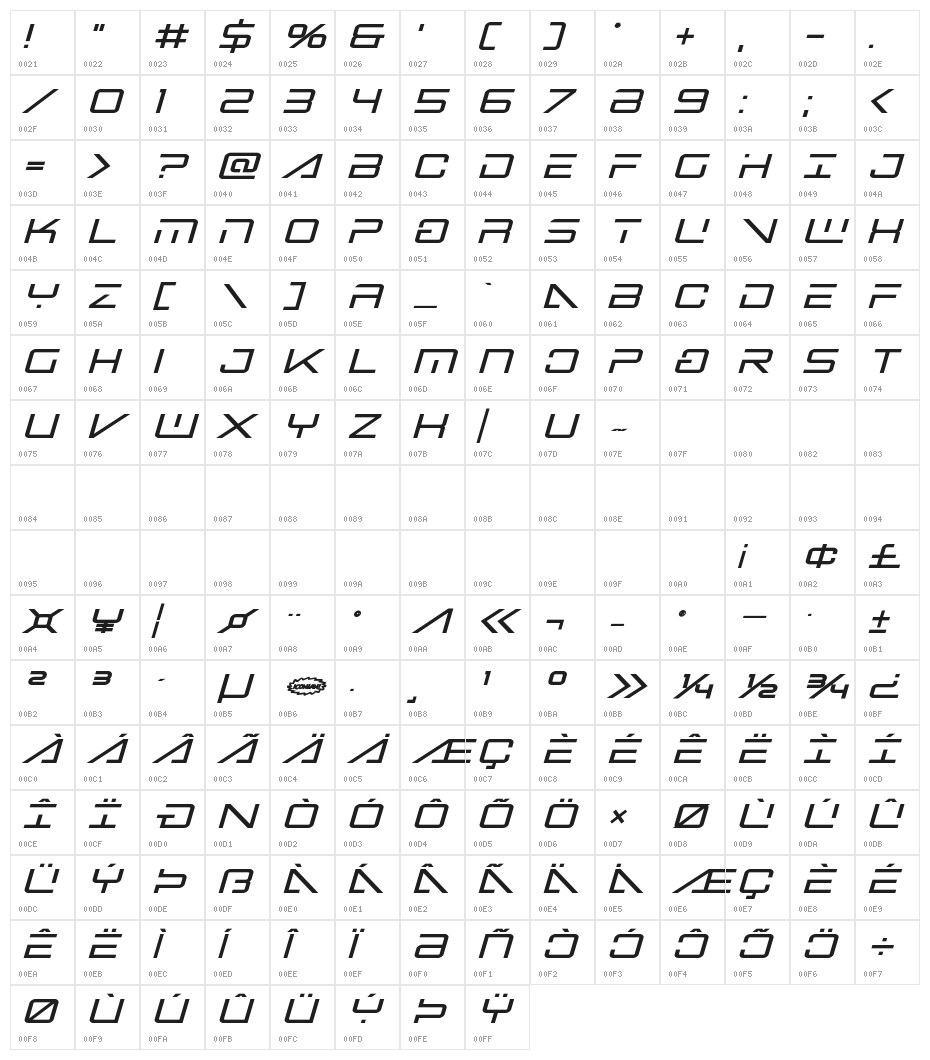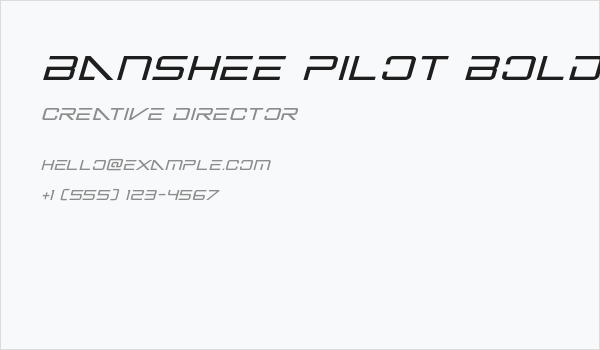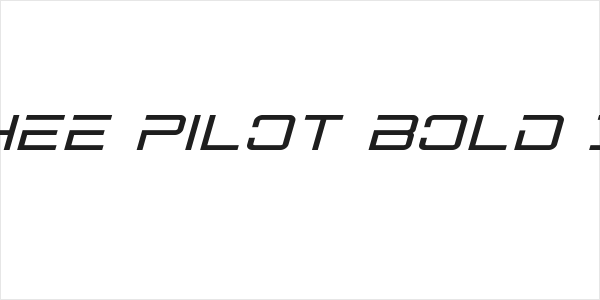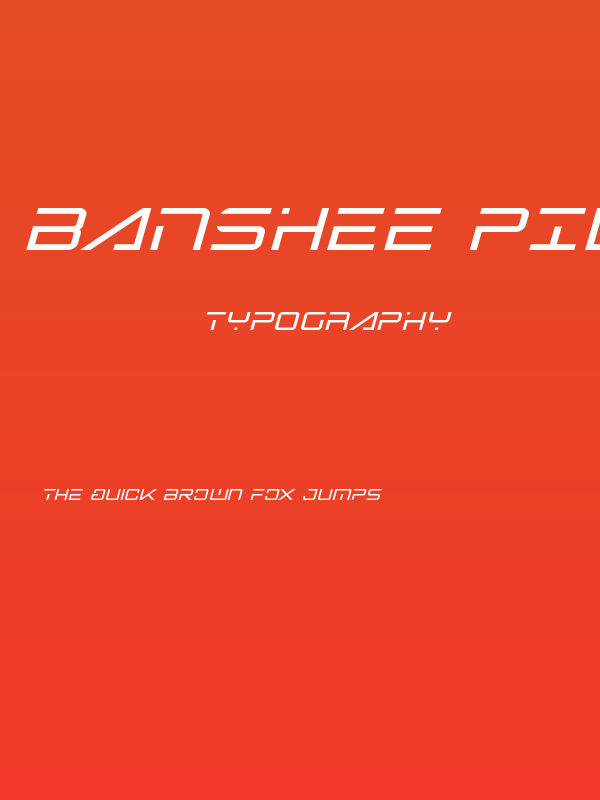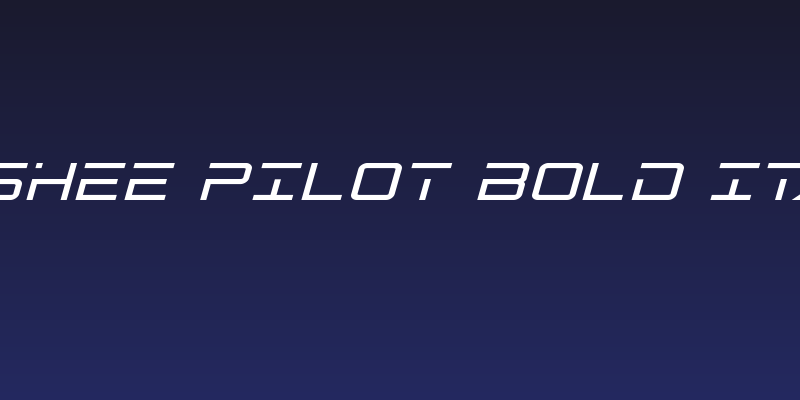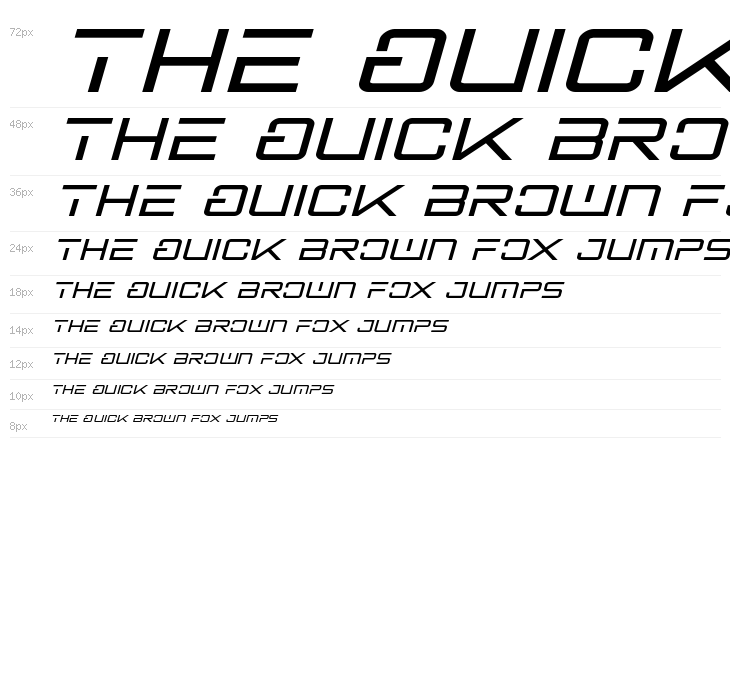
Banshee Pilot Bold Italic Font
Banshee Pilot Bold Italic Description
This font exhibits a futuristic and dynamic style with a bold and italicized appearance. The characters are designed with sharp angles and a forward-leaning posture, giving a sense of motion and speed. The uppercase and lowercase letters maintain a consistent geometric structure, while the numerals and special characters complement the overall aesthetic. The font's design is sleek and modern, making it suitable for projects that require a cutting-edge look. The spacing between characters is tight, enhancing the compact and streamlined feel.
| Proposed Projects | Ideal for technology branding, sci-fi movie posters, video game titles, and automotive advertisements. |